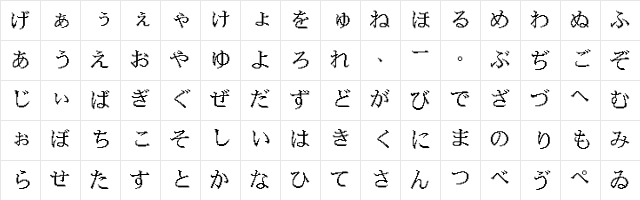
Kakumin Regular
Design Context for Kakumin Typeface
Kakumin offers clean, dependable letterforms without strong stylistic allegiance, making it a practical choice for designers who need flexibility.
Pro Tip: Use Kakumin in both headline and body roles to test its range before committing to a single application.